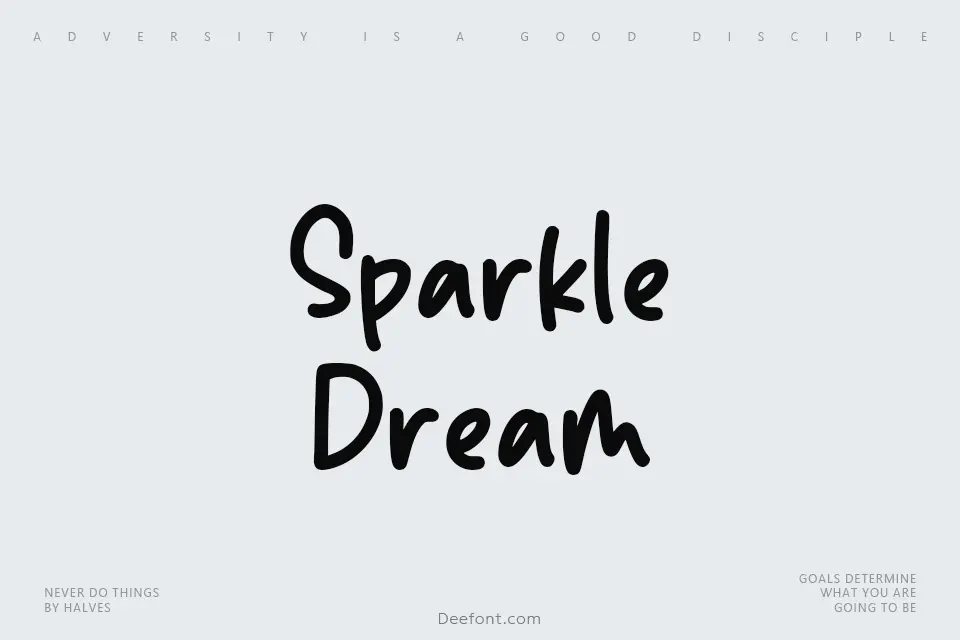
Sparkle Dream Font
Sparkle Dream results out of a stunning pairing of a brush pen and pencil that makes it look incredibly endearing and authentic. Use this gorgeous and unique handwritten font to bring any DIY project to life